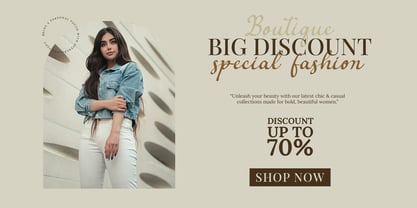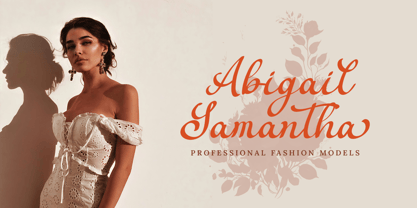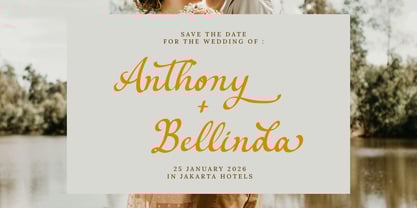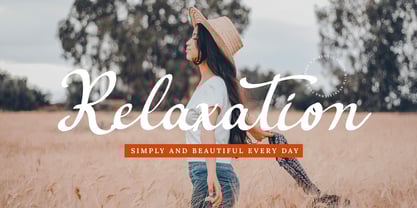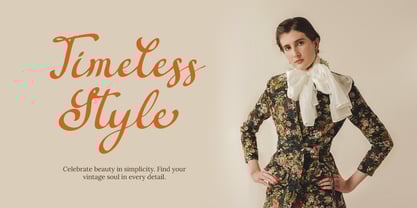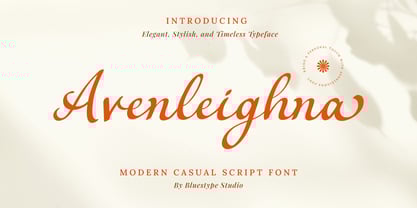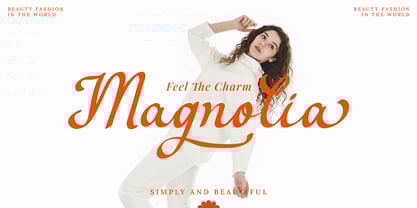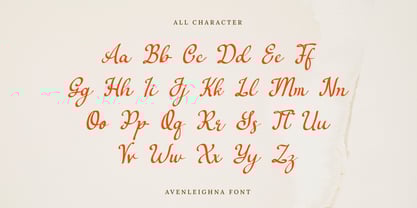
Avenleighna
by Bluestype Studio
The Avenleighna Font Family was designed by Jefri Dwi Alfatah and published by Bluestype Studio. Avenleighna contains 1 styles. More about this family
Avenleighna is a beautifully crafted script font that blends effortless casual strokes with a hint of vintage allure and modern simplicity. Designed to be versatile, Avenleighna moves gracefully between contemporary designs and nostalgic classics, making it perfect for logos, branding, invitations, social media, and editorial layouts.
Designers: Jefri Dwi Alfatah
Current Foundry: Bluestype Studio